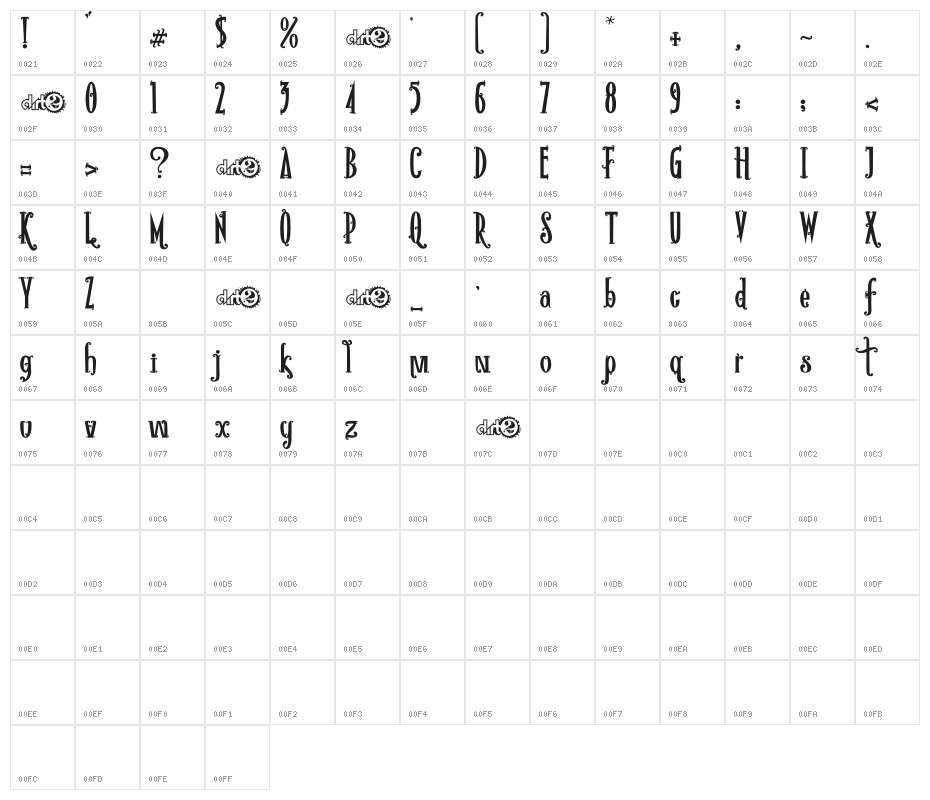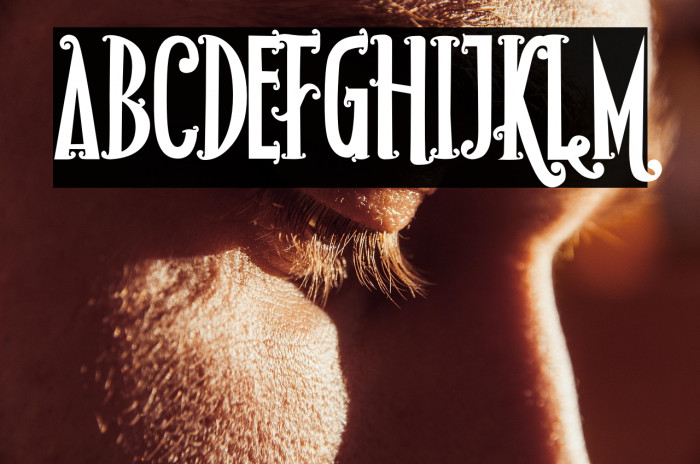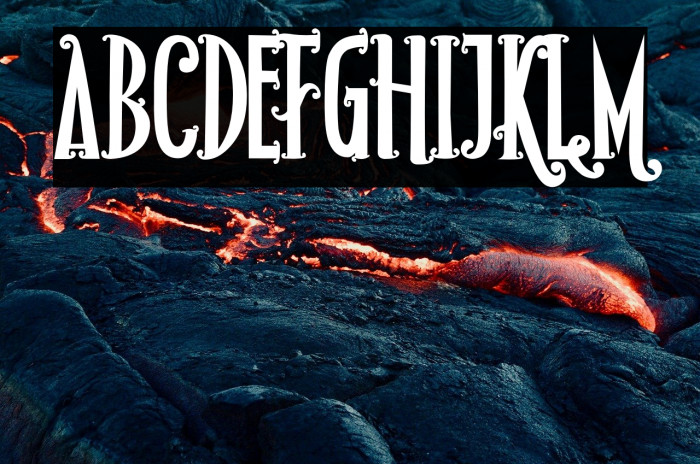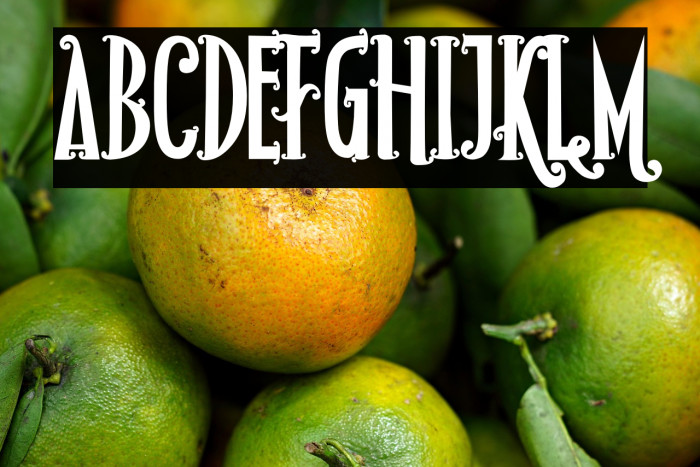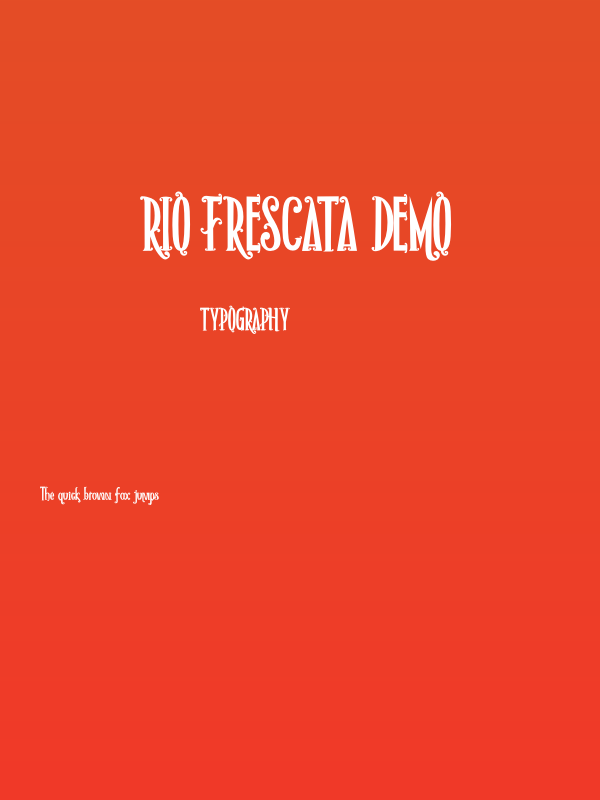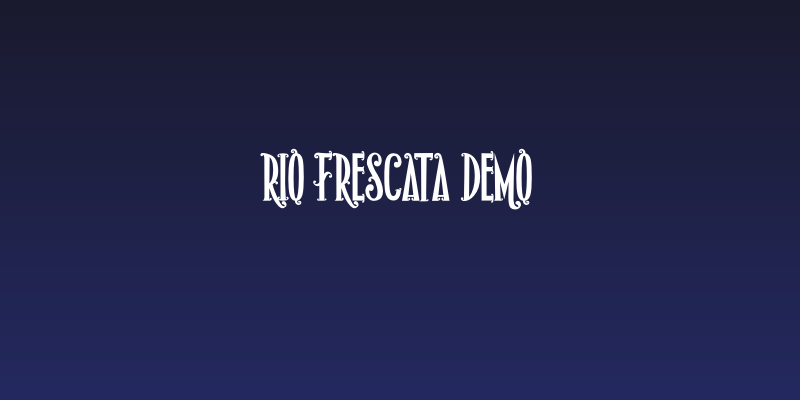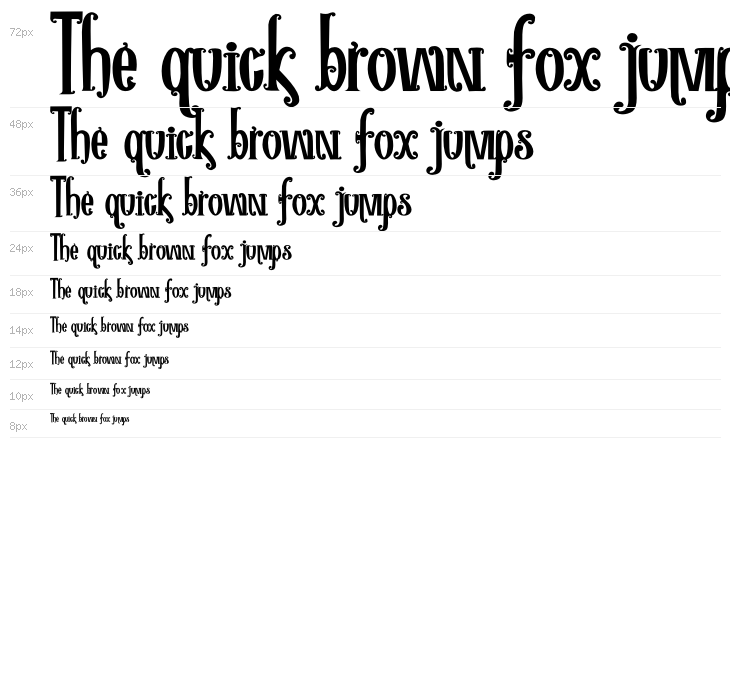
Rio Frescata Demo Font
Rio Frescata Demo Description
This font features a whimsical and decorative style, characterized by its unique and playful serifs that curl and extend beyond the typical letterforms. The uppercase letters are tall and narrow, with exaggerated serifs that give them a distinctive flair. The lowercase letters maintain a similar style, with some characters incorporating loops and swirls that add to the font's playful nature. The numerals are consistent with the overall design, featuring the same decorative elements. Special characters are creatively designed, incorporating gears and other intricate details, enhancing the font's artistic appeal. This font is ideal for projects that require a touch of creativity and uniqueness.
| Proposed Projects | Ideal for creative projects such as posters, invitations, and branding materials that seek a unique and artistic touch. |